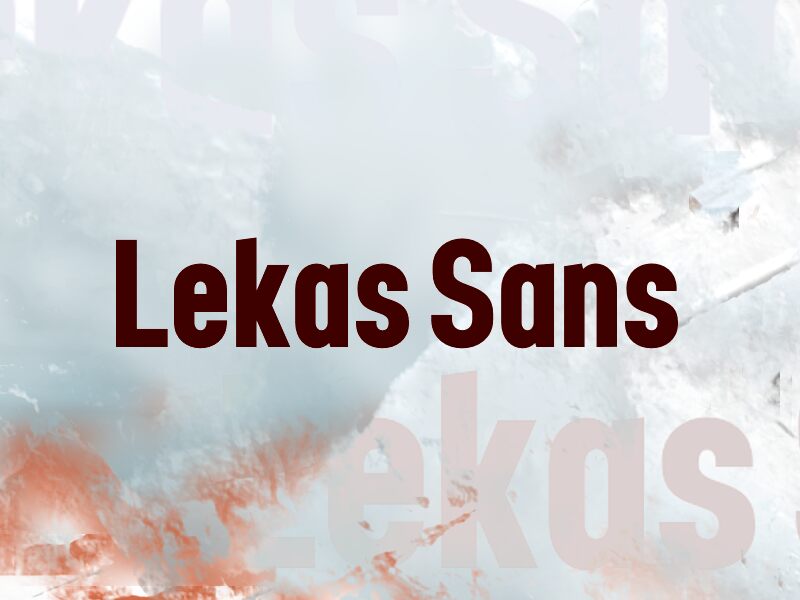
Lekas Sans
Lekas Sans font by wep is a free sans serif typeface that hits that tricky sweet spot: bold, compact, and still cleanly readable. Its chunky vertical shapes and tight spacing give text a heavy, poster-like punch without turning into a brick of ink. The forms feel sturdy and straightforward, with just enough curve in the rounds to keep it from looking cold or mechanical.
Using Lekas Sans, headlines instantly snap into focus, even in narrow spaces where wider fonts fall apart. This free font works beautifully for posters, banners, social media graphics, packaging, event flyers, and bold logotypes that need to read at a glance. Try pairing Lekas Sans for titles with a light, open sans for body copy to keep layouts strong but breathable.